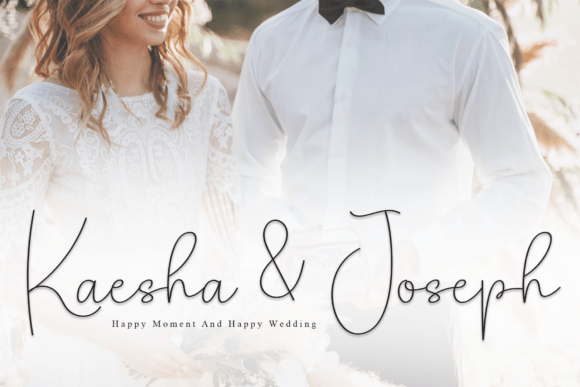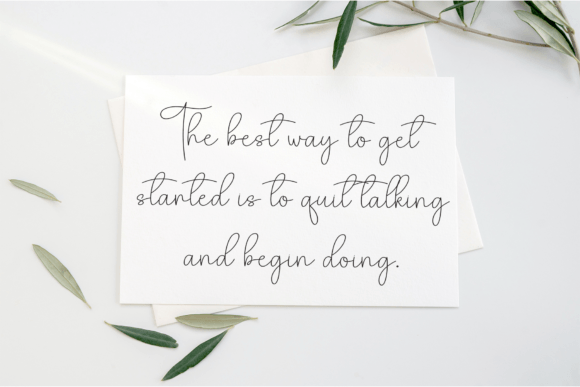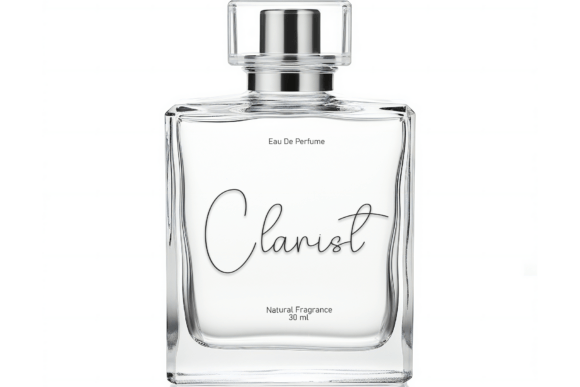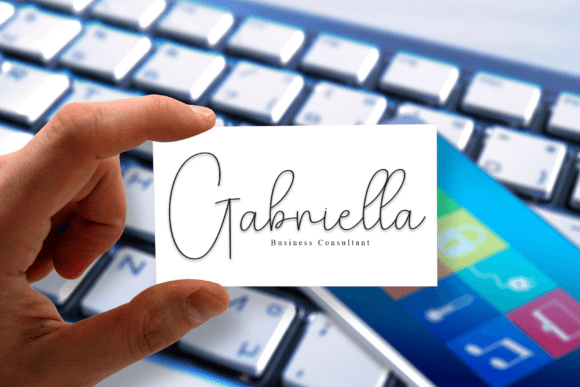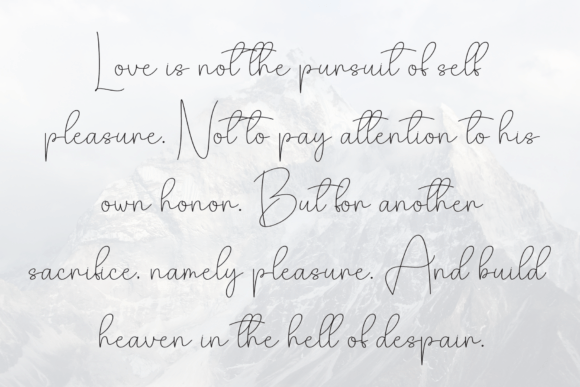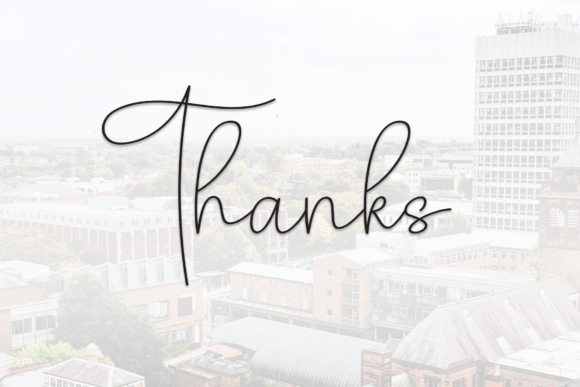
Introduction to Hello Brimingham Font Font
Fonts play a crucial role in design, and the Hello Brimingham Font font is a typeface that brings both character and versatility to any project. Whether you’re working on a branding project, a website, or a print design, the Hello Brimingham Font font offers a unique style that can elevate your work.
Hello Brimingham is a stylish and incredibly elegant script font.
It looks stunning on wedding invitations, thank you cards, quotes, greeting cards, logos, business cards and every other design which needs a handwritten touch .
Key Features of Hello Brimingham Font Font
Why Choose Hello Brimingham Font Font?
The Hello Brimingham Font font is more than just a typeface – it’s a design tool that helps you communicate your message with style and clarity. Its unique character set and versatile design make it suitable for a wide range of applications, from elegant invitations to bold headlines.
With its carefully crafted letterforms and balanced proportions, the Hello Brimingham Font font ensures readability and visual appeal across all mediums.
What makes Hello Brimingham Font font special?
The Hello Brimingham Font font stands out with its unique design, exceptional readability, and versatility across various design applications.